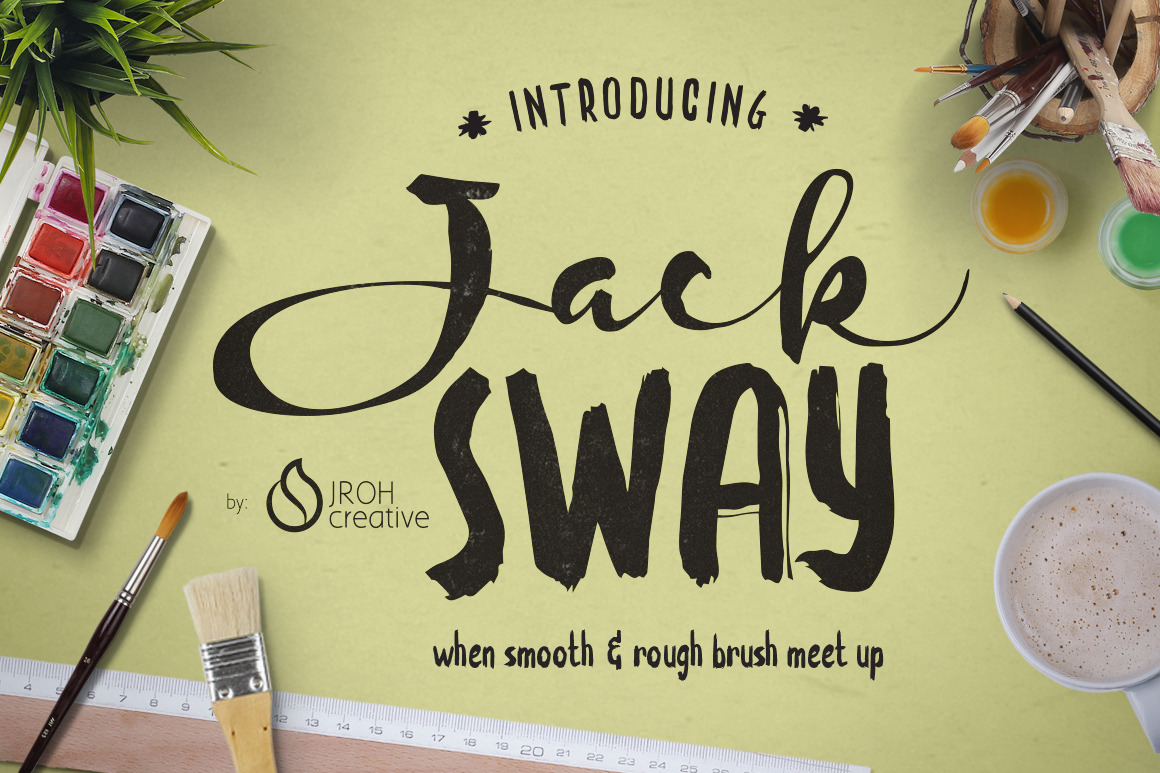
JackSway font
HI All introduce font JackSway. This font was created by accident while listening to smooth jazz music while scribble with a brush. My hand movements unconsciously swaying gently while listening to Kool & Klean saxophone. JackSway font character creates soft and irregular flow thick and thin influenced thats.
Unlike when listening to Vincent Ingala, can 't stop now, pounding drums and saxophone blowing faster and flowing, direct me to change the rough brush. Keep nodding my head and continue writing creates JackSway dingbats and Jack Script .
The combination of this font is suitable for naming catalogs, badges, logos, quotes, or to cover books, album covers, posters, magazine Headlines, signature, apparel, letterhead etc.
The Features of this fonts is:
- Contextual alternates
- Stylistic alternates
- Initial & Terminal Forms
- Discretionary Ligatures
- International glyphs